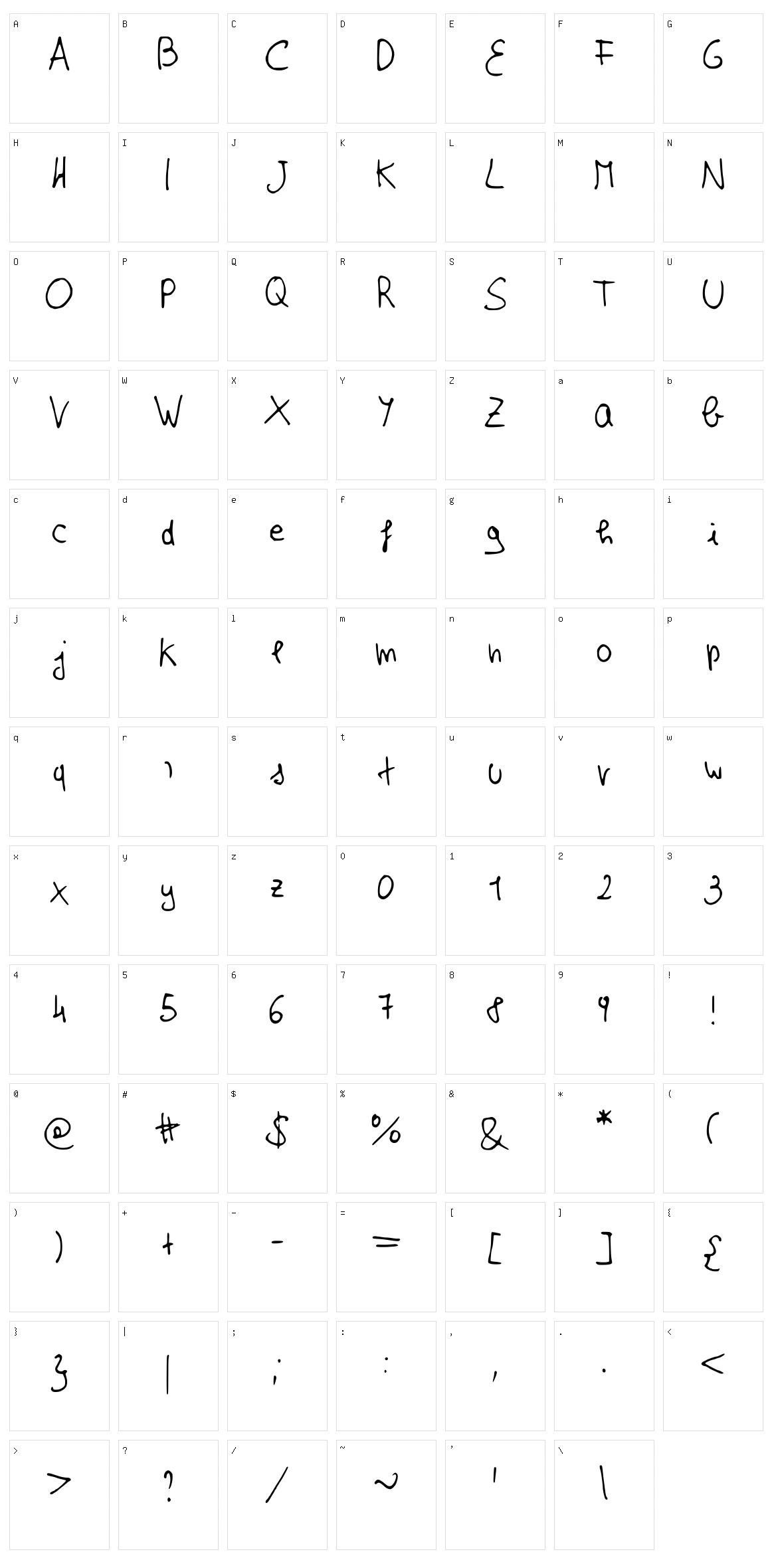
The free font Effe New Version is carefully designed by Maria Felicia, showcasing a thoughtful balance of creativity and usability and falls under the Script font style. When you download the ZIP file, it contains only 19.49 KB of font files, making it lightweight and quick to download. Please review the license details below to understand permitted usage and distribution rights. If license information is not available, we recommend using this font for personal projects only or contacting the author directly for commercial usage permissions.